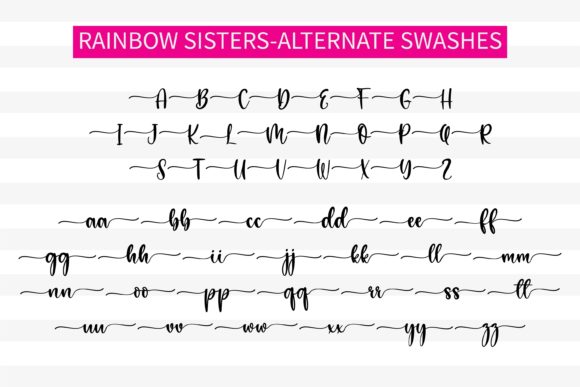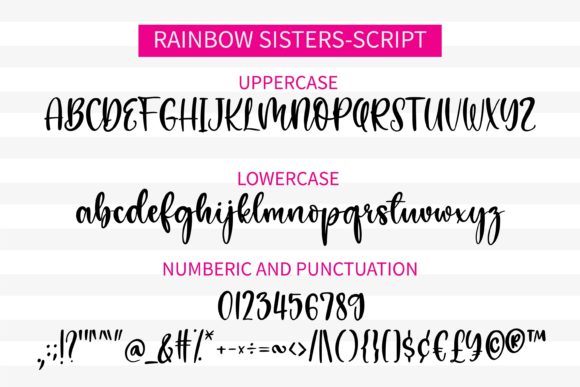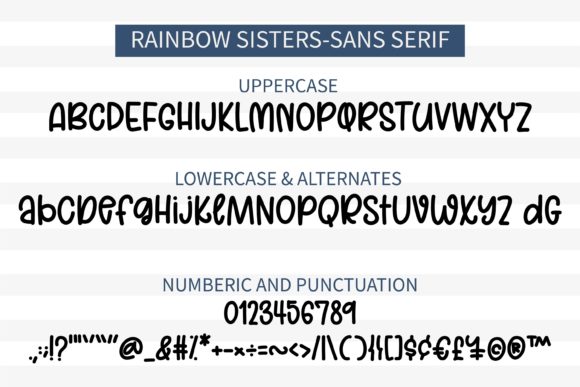
Introduction to Rainbow Sister Font
As you sit down to work on your latest creative project, do you find yourself searching for that perfect font to bring your idea to life? Perhaps you’re designing a beautiful invitation, a stunning logo, or a whimsical children’s book – whatever it is, you want it to be truly special. That’s where the Rainbow Sister Font comes in – a stunning, hand-crafted font that’s sure to make your design shine.
With its delicate, handwritten style and high-quality design, the Rainbow Sister Font is the perfect addition to any creative project. Whether you’re a seasoned designer or just starting out, this font is a valuable resource that’s sure to help you stand out from the crowd.
Key Features of Rainbow Sister Font
- Unique, hand-drawn design with a playful and whimsical feel, perfect for creative projects.
- Features a bold and colorful design, with each letter and symbol carefully crafted to create a cohesive and visually appealing aesthetic.
- Designed to be highly legible, even at small font sizes, making it perfect for use in a variety of creative projects, from posters and flyers to social media graphics and more.
Honest Review: Rainbow Sister Font
I recently had the chance to work with the Rainbow Sister Font, and I must say it’s been a game-changer for my creative projects. As a designer, I’m always on the lookout for high-quality design resources that can elevate my work, and this font definitely delivers.
What works well: ✨ The Rainbow Sister Font is incredibly versatile and can be used for a wide range of creative projects, from children’s books to social media graphics. The font is available for free download, which is a major bonus for designers on a budget. The transparent background feature also makes it easy to customize and combine with other design elements.
However, there are a few limitations to keep in mind: ⚠️ The font is a bit on the playful side, which may not be suitable for all design projects. Additionally, the font is only available in a few weights and styles, which may limit its versatility for some designers.
Overall, I’m thoroughly impressed with the Rainbow Sister Font. It’s a great addition to any designer’s toolkit, and I highly recommend it for any creative project that needs a fun and playful touch.
The Rainbow Sister Font is a high-quality design resource perfect for adding a touch of creativity to your projects. With its vibrant colors and unique design, this font is ideal for anyone looking to elevate their design game.
The Rainbow Sister Font is perfect for a variety of creative projects, including:
- Print design
- Party invitations and decorations